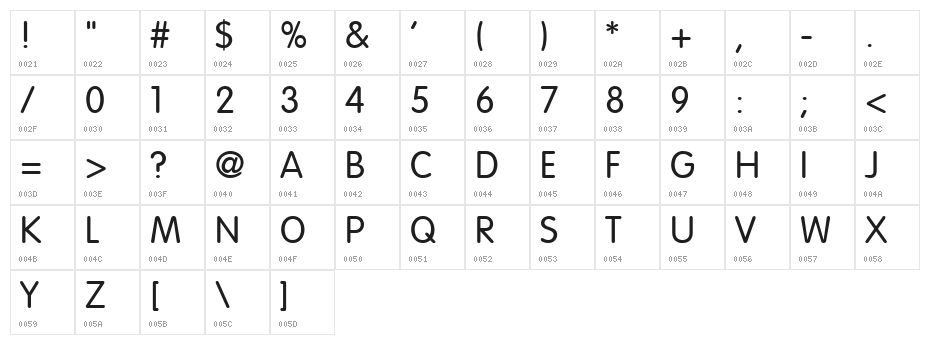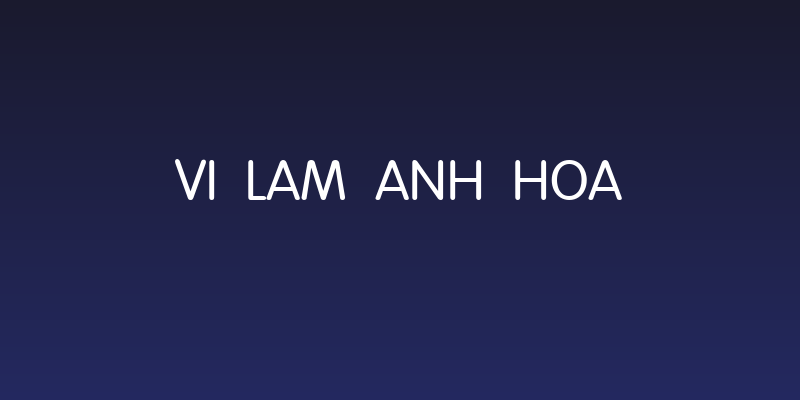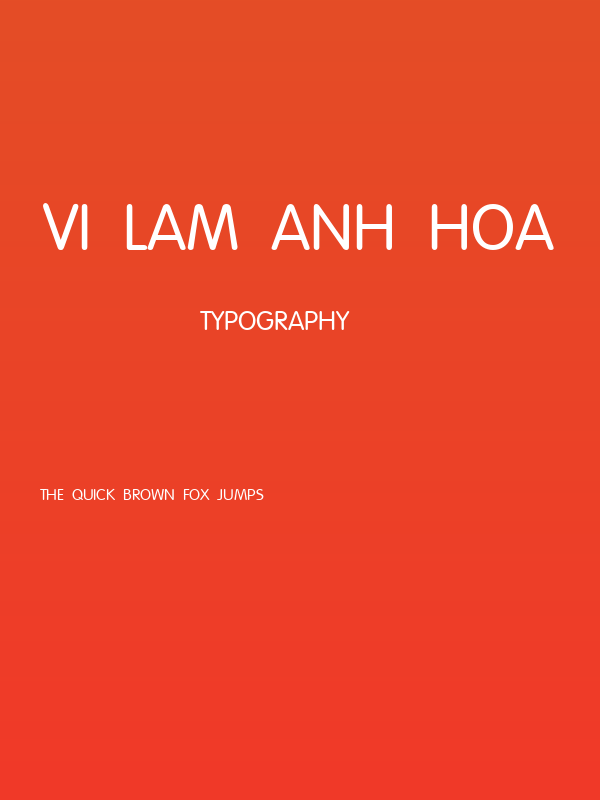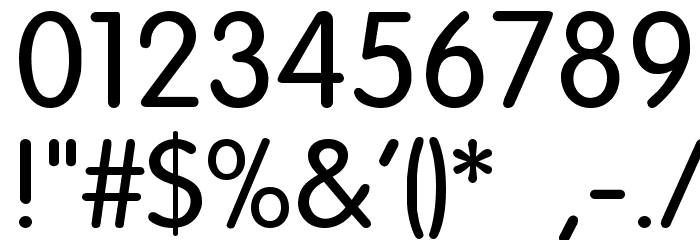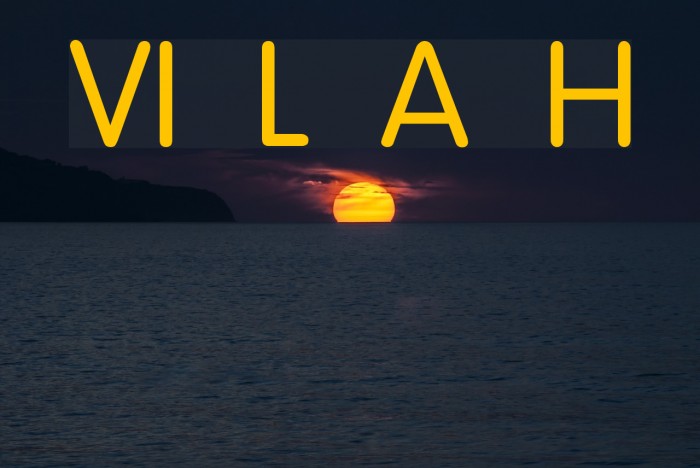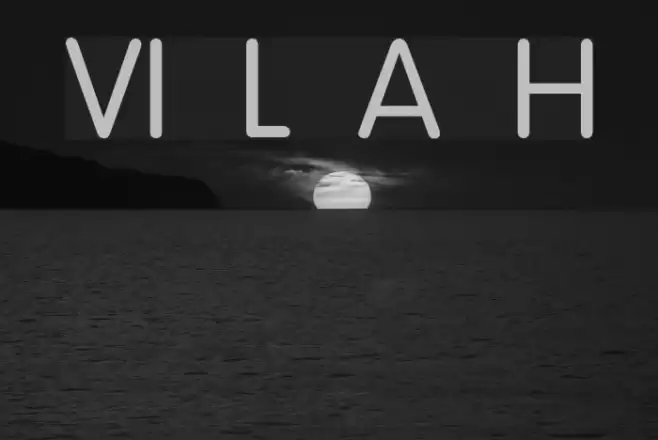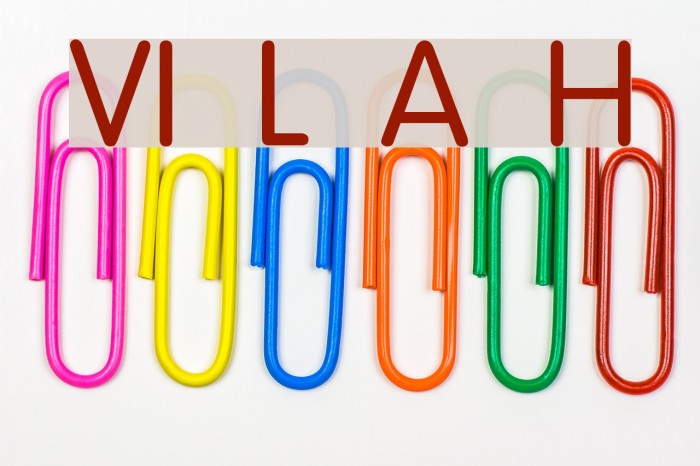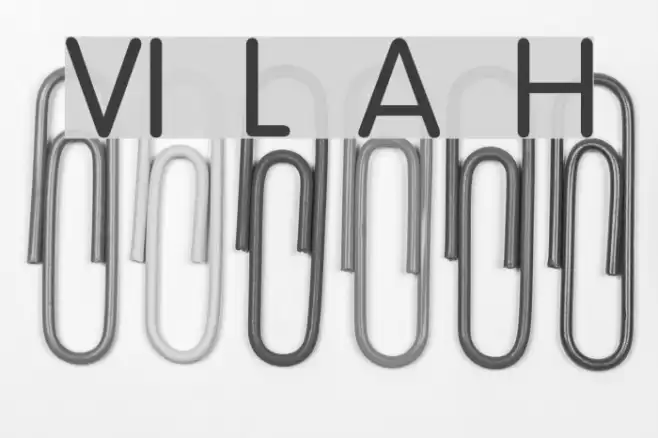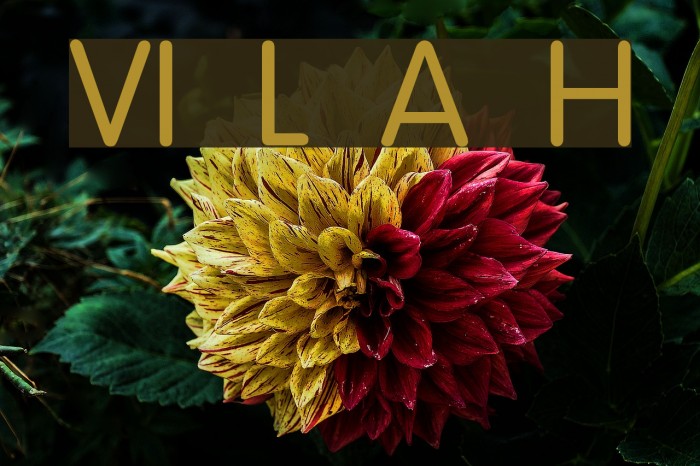
VI Lam Anh Hoa Font
✎ Sans Serif
VI Lam Anh Hoa Description
This font features a clean and modern sans-serif design with smooth, rounded edges that give it a friendly and approachable appearance. The characters are well-proportioned, with consistent stroke widths that provide a harmonious and balanced look. The uppercase and lowercase letters maintain a uniform style, ensuring readability and versatility across different applications. The numerals are clear and distinct, making them suitable for both digital and print media. Special characters are included, enhancing the font's utility for various design needs.
| Use Case | Headlines, Body text, Logos |
| Proposed Projects | Ideal for branding, web design, advertising, and editorial projects where a modern and approachable feel is desired. |